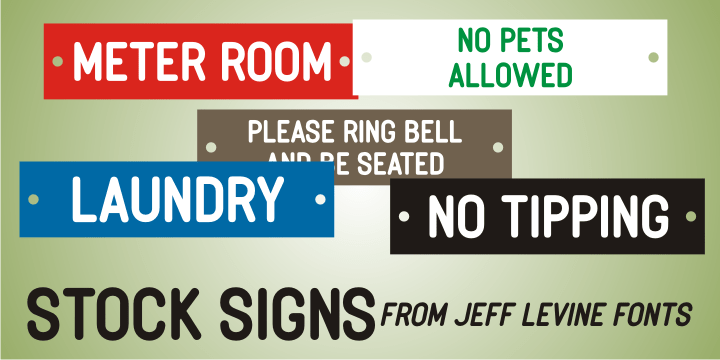
Stock Signs
Stock Signs JNL is a collection of fifty-two signs resembling those made by engraving letters into plastic using a pantograph process. There is also a pair of blank signs on the parenthesis keys.
To make your own signs or layouts emulating this classic look, try Sign Engraver JNL, which is the font used for these designs.